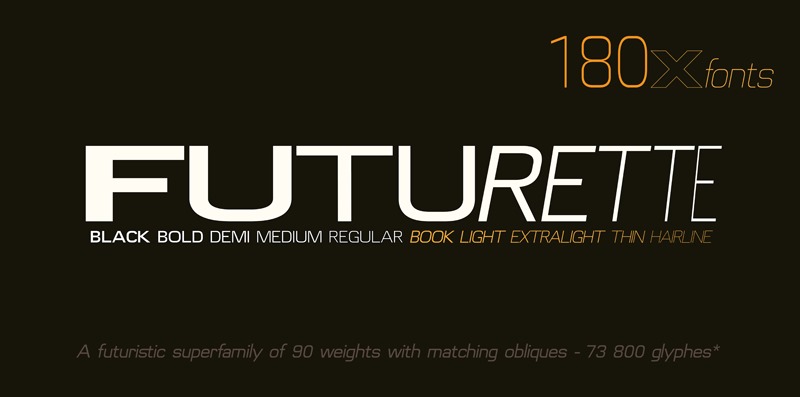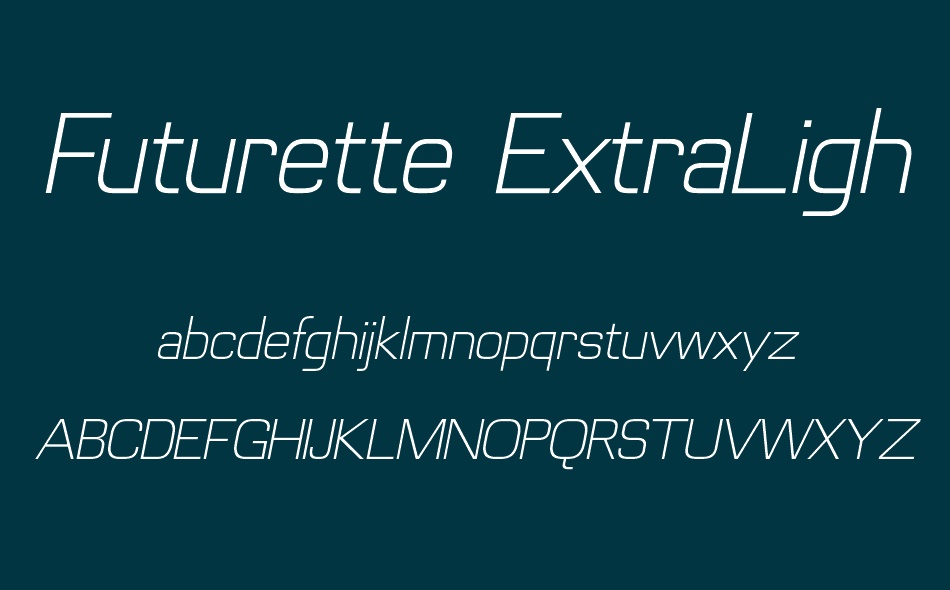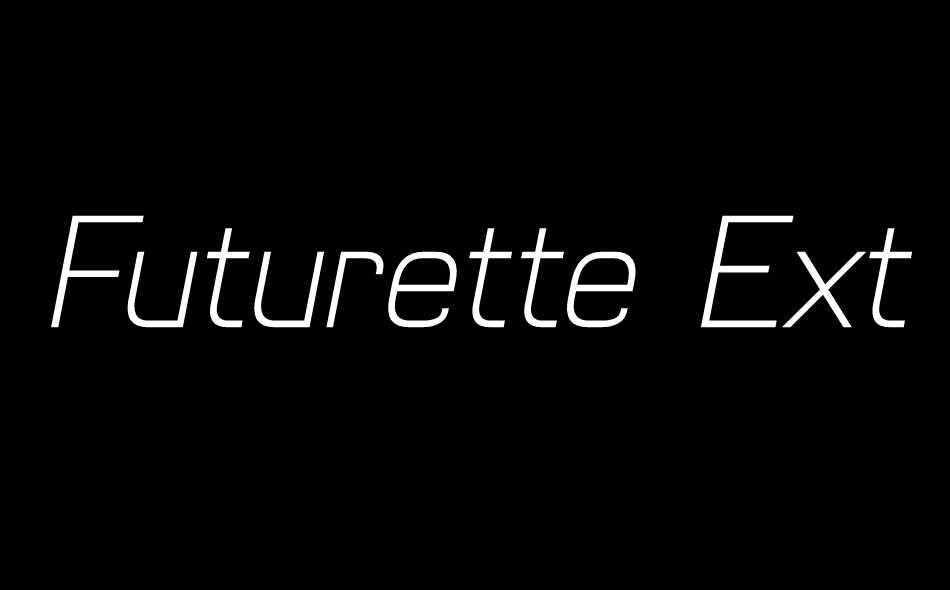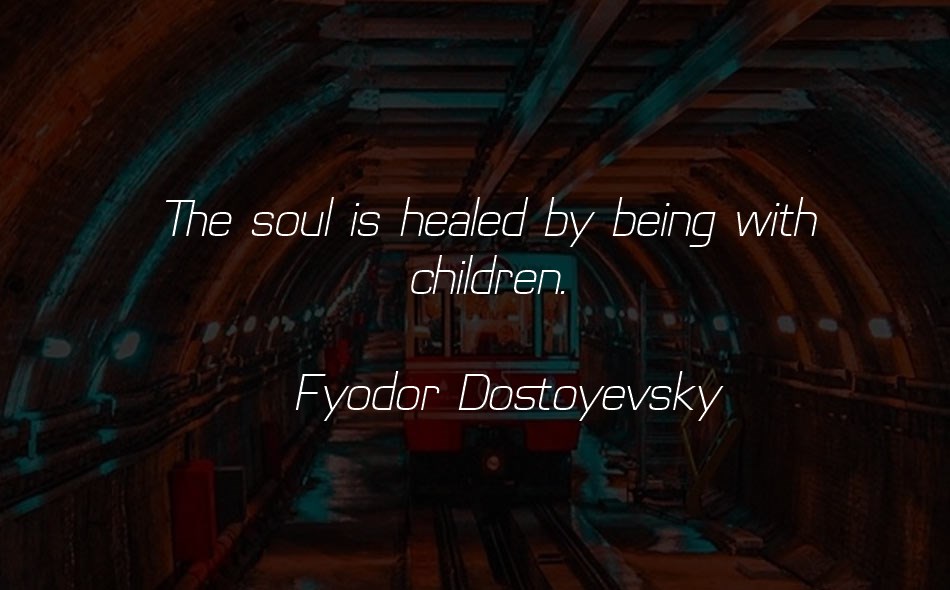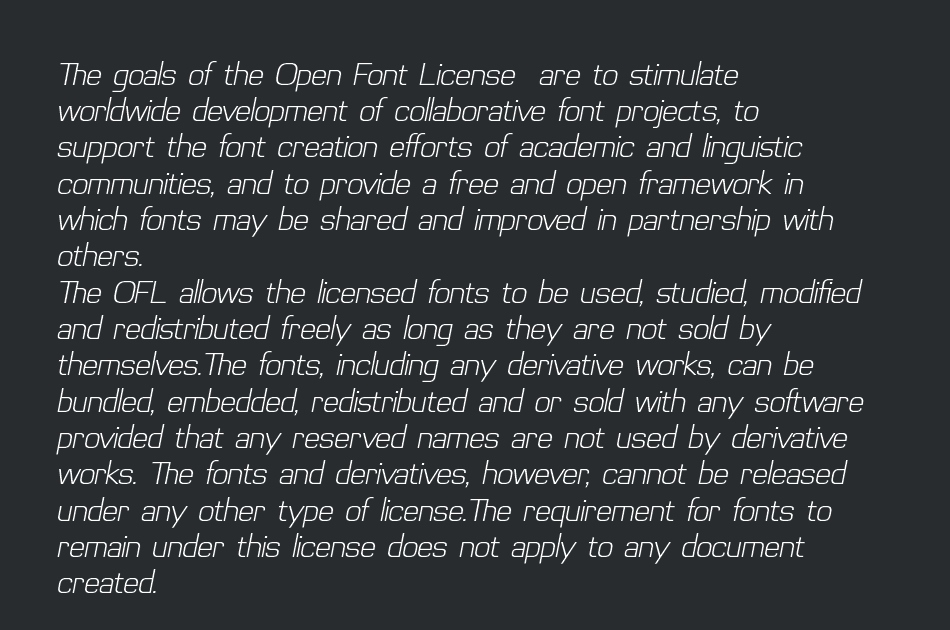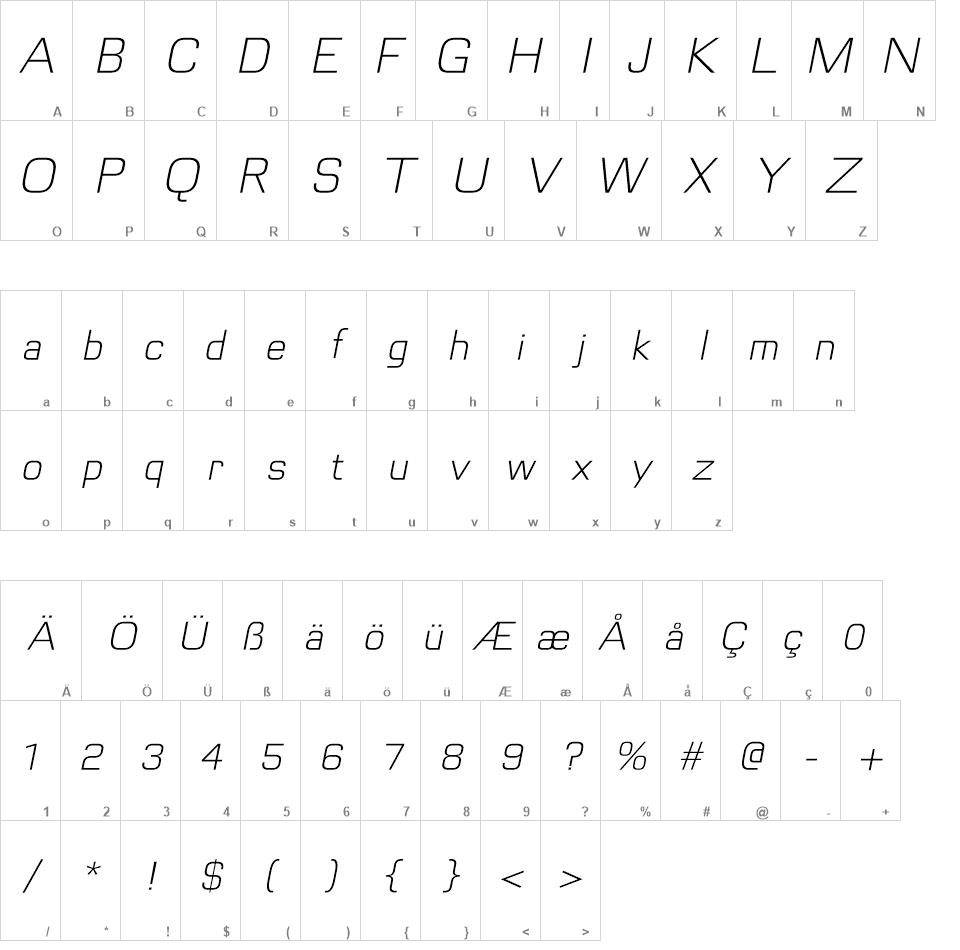
Futurette font
Inspired by futuristic types from the late 70's and early 80's (like Handel Gothic, ITC Bolt, or more recently Typodermic's Conthrax family) **Futurette FF** will sied pretty well for sport, synthwave and so on artworks.
Each one comes with more than 400 glyphes, and can be used for text as well as a display with its large choice of weights.
It covers most western latin languages with many diacritics and has a set of ligatures